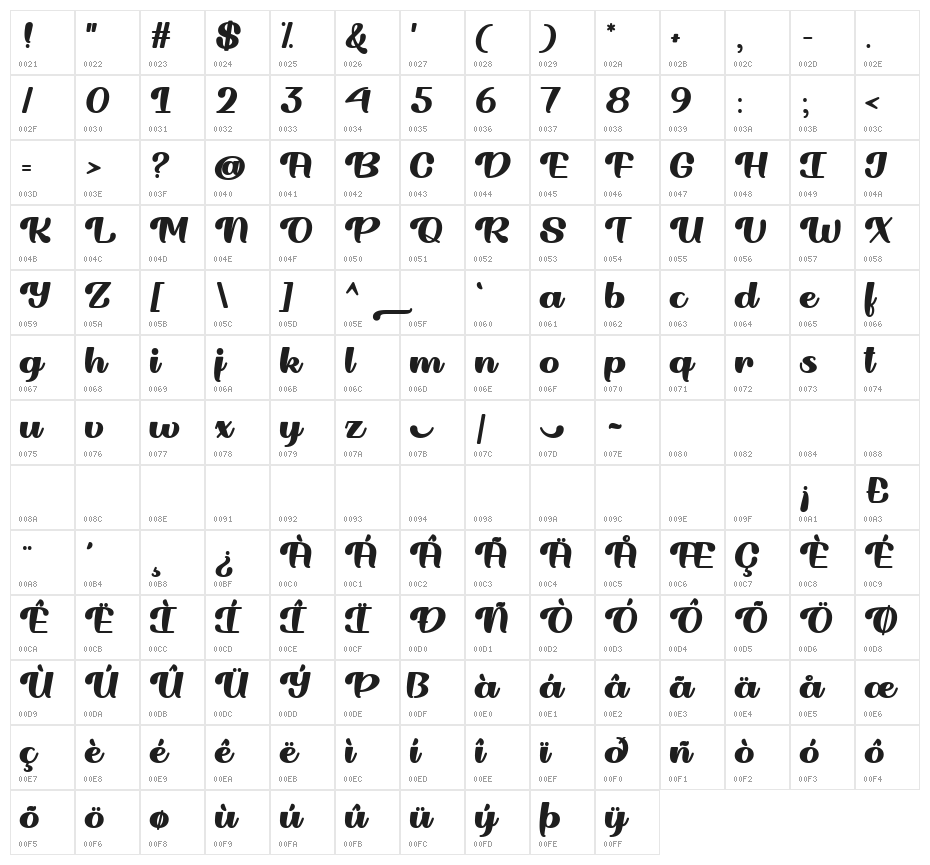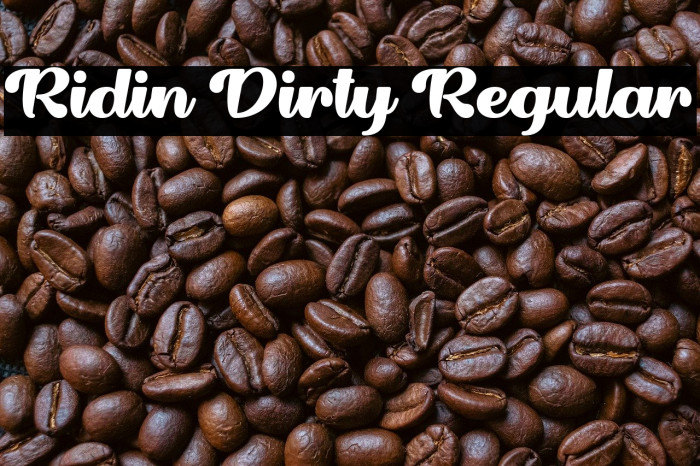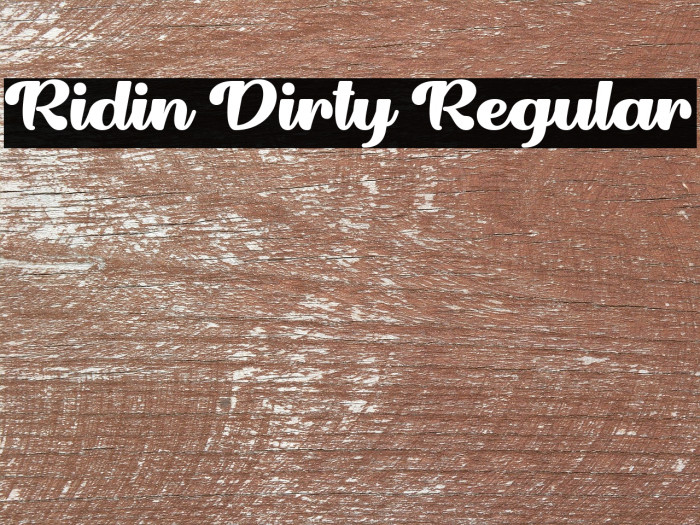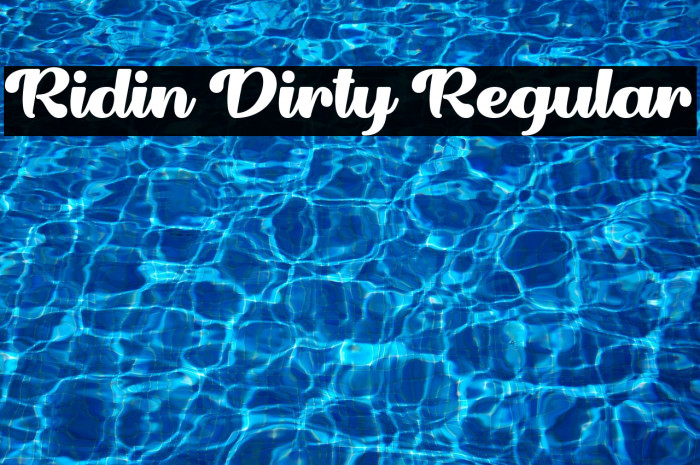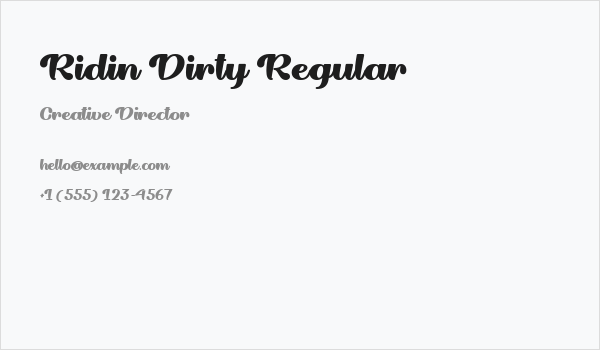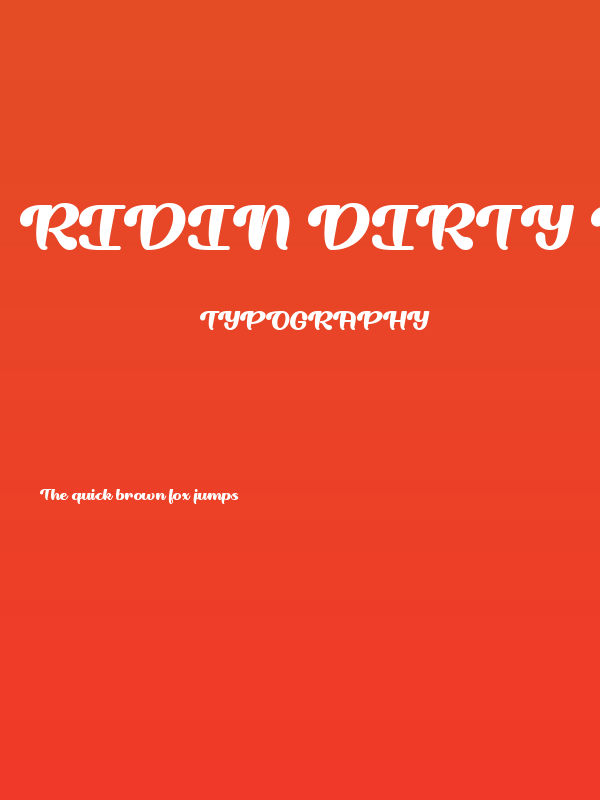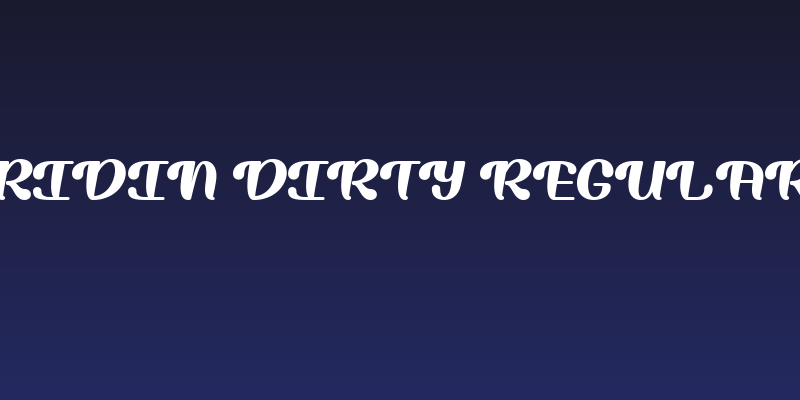
Ridin Dirty Regular Font
Ridin Dirty Regular Description
This font features a bold and flowing script style, characterized by its smooth curves and elegant swashes. The uppercase letters are particularly striking, with a consistent height and a slight slant that adds a sense of motion. The lowercase letters maintain a cohesive look, with rounded forms and a playful bounce. The numerals are bold and clear, ensuring readability. Special characters are designed with the same fluidity, making them blend seamlessly with the rest of the typeface. Overall, this font exudes a sense of modern elegance and casual sophistication.